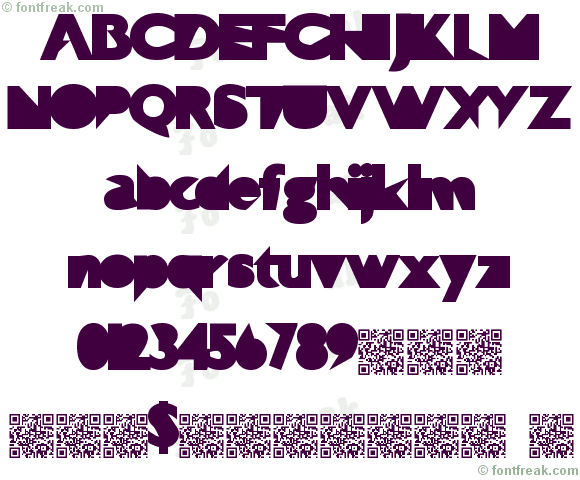
Technophilia
Technophilia by XEROGRAPHER FONTS is a striking display font that seamlessly blends modern aesthetics with a touch of retro flair. This font, designed in 2013, showcases unique visual characteristics that make it an eye-catching choice for a variety of design projects. With its bold stroke weight and dynamic contrast, Technophilia features geometric forms that evoke a sense of forward-thinking creativity. The spacing is thoughtfully crafted, allowing for clarity and legibility, making it ideal for headlines and branding.
The versatility of the Technophilia font makes it suitable for a range of applications. It works exceptionally well for tech-related branding, giving a contemporary edge to company logos and websites. Additionally, it can elevate the visual appeal of movie posters, particularly for science fiction or futuristic themes. Restaurant menus can benefit from its unique style, setting the tone for a modern dining experience. Furthermore, graphic designers can utilize Technophilia in social media graphics and promotional materials to capture attention and convey a sense of innovation.
What sets Technophilia apart is its ability to fuse artistic expression with practicality. Its distinctive design elements ensure that it stands out, while its versatility allows it to adapt to various contexts. For those looking for a font that embodies a modern, tech-savvy vibe, the Technophilia font free download is an excellent option that can elevate any creative endeavor.